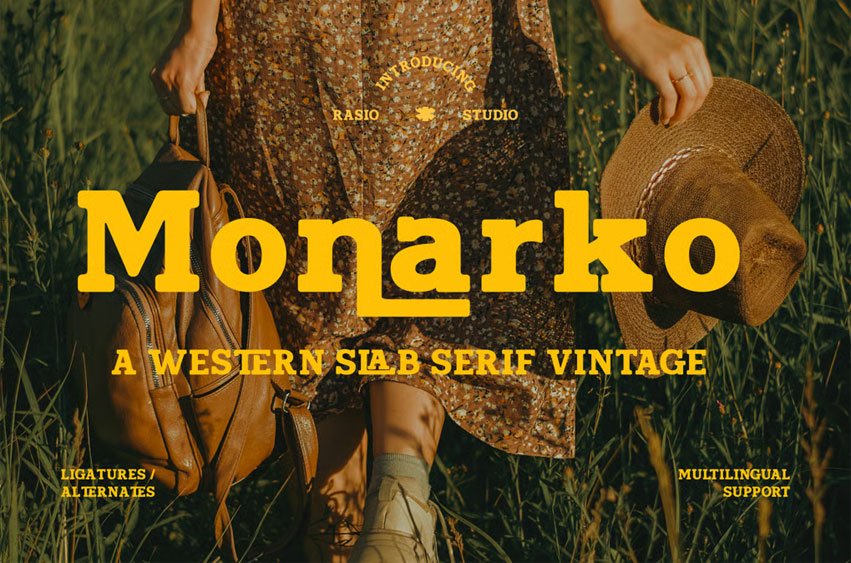
Monarko Font is a bold Western‑inspired slab serif typeface infused with vintage character and rugged charm. Its strong, robust letterforms feature thick slab serifs and distinctive structural details that evoke classic Western signage, vintage posters, and rustic branding. This font includes a complete set of uppercase and lowercase characters, numerals, punctuation, and essential symbols. Monarko also supports multilingual usage and includes stylistic alternates and ligatures to expand creative flexibility. With its confident presence and vintage aesthetic, Monarko is ideal for bold headlines, logo work, signage, merchandise graphics, and branding projects that call for a nostalgic, Americana‑rooted feel. Whether for print or digital use, this typeface delivers personality and impact with every letter.
Relevance and Use Cases is perfect for projects that need a bold, nostalgic Western vibe. It excels in branding for outdoor and lifestyle businesses, vintage posters and event flyers, retro packaging, signage, merchandise design, logo creation, and editorial headlines where a strong personality and classic style are priorities.